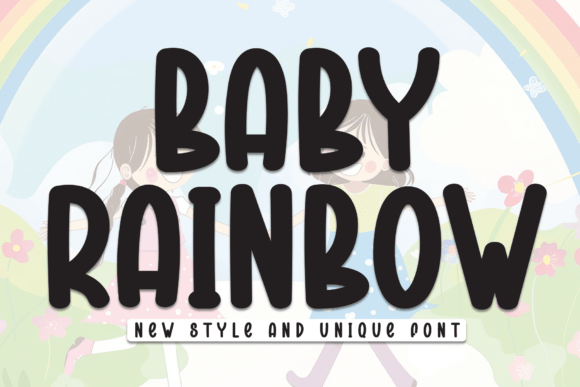
Baby Rainbow Font: The Sweet and Friendly Handwritten Font for Your Design Needs
In the world of typography, fonts play a crucial role in making or breaking a design. A font can elevate your project from ordinary to extraordinary, and that’s where the Baby Rainbow font comes in. This sweet and friendly handwritten font is perfect for designers looking for a natural and unique style to make their designs stand out. In this article, we’ll dive into the world of Baby Rainbow font, exploring its features, uses, and benefits.
What is Baby Rainbow Font?
Baby Rainbow is a beautiful, handwritten font that exudes a sense of warmth and friendliness. Its natural and unique style makes it incredibly fitting for a wide range of designs, from baby-related projects to more mature themes. The font’s versatility is limitless, and the only limit is your imagination!
Key Features of Baby Rainbow Font
- Handwritten style: Baby Rainbow font boasts a sweet, handwritten style that adds a personal touch to any design.
- Natural and unique: The font’s natural and unique style sets it apart from more traditional fonts, making it perfect for designers looking to add some personality to their work.
- Versatile: Baby Rainbow font can be used for a wide range of designs, from baby-related projects to more mature themes.
- Easy to read: The font is easy to read, making it perfect for body text, headings, and titles.
Uses of Baby Rainbow Font
Baby Rainbow font is perfect for a variety of design projects, including:
- Baby-related projects: The font is ideal for baby shower invitations, birth announcements, and baby-themed party decorations.
- Wedding and event designs: Baby Rainbow font can add a touch of whimsy and romance to wedding invitations, save-the-date cards, and event branding.
- Branding and packaging: The font’s unique style makes it perfect for branding and packaging designs, especially for businesses that want to stand out from the crowd.
- Digital and print media: Baby Rainbow font can be used for digital and print media, including social media graphics, blog posts, and magazine articles.
Benefits of Using Baby Rainbow Font
- Adds a personal touch: The font’s handwritten style adds a personal touch to any design, making it perfect for designers looking to create a unique and emotional connection with their audience.
- Versatile and flexible: Baby Rainbow font can be used for a wide range of designs, making it a great addition to any designer’s font library.
- High-quality: Baby Rainbow font is a high-quality font that is designed to deliver exceptional results.
Tips for Using Baby Rainbow Font
- Pair it with other fonts: Baby Rainbow font can be paired with other fonts to create a unique and visually appealing design.
- Experiment with colors: The font looks great in a variety of colors, so don’t be afraid to experiment and find the perfect color scheme for your design.
- Use it for headings and titles: Baby Rainbow font is perfect for headings and titles, adding a touch of personality and whimsy to any design.
- Keep it simple: Don’t overcomplicate your design – keep it simple and let the font do the talking.
In conclusion, Baby Rainbow font is a sweet and friendly handwritten font that is perfect for designers looking to add a personal touch to their work. Its natural and unique style makes it incredibly versatile, and the only limit is your imagination! Whether you’re working on a baby-related project or a more mature theme, Baby Rainbow font is a great choice.